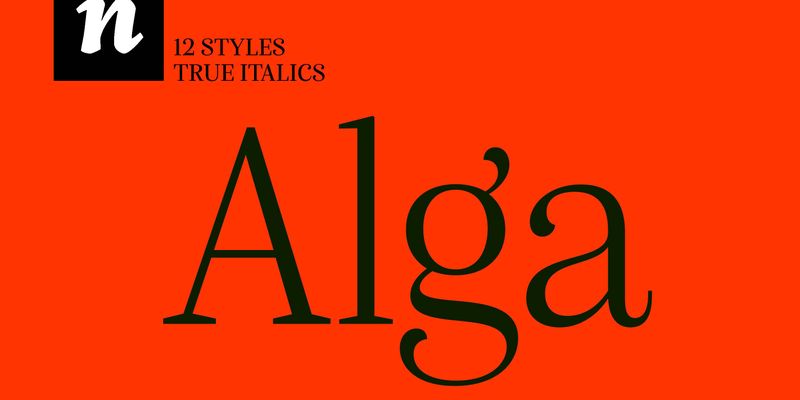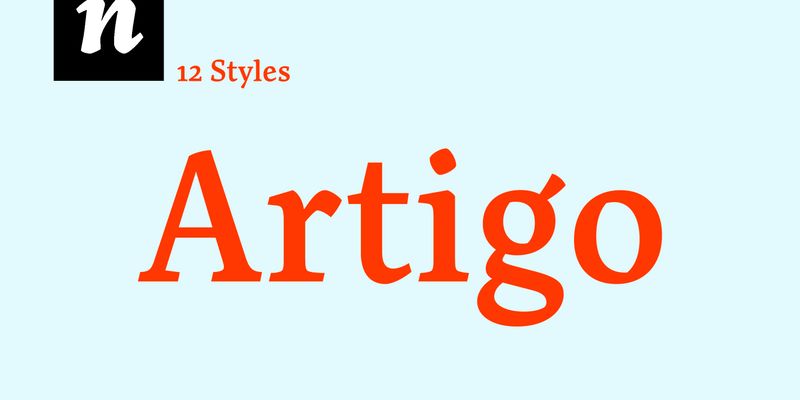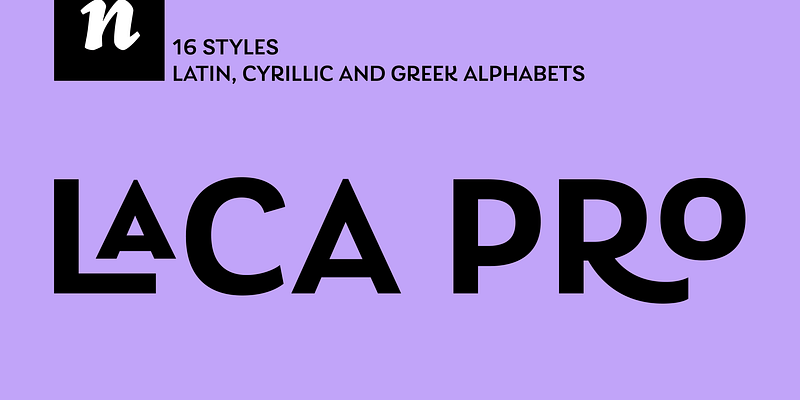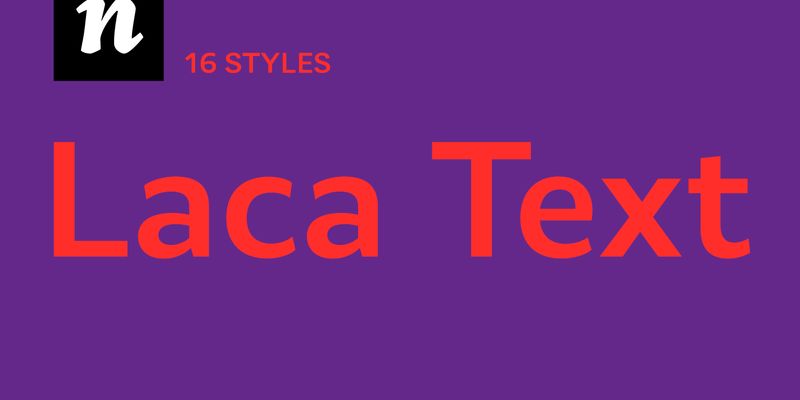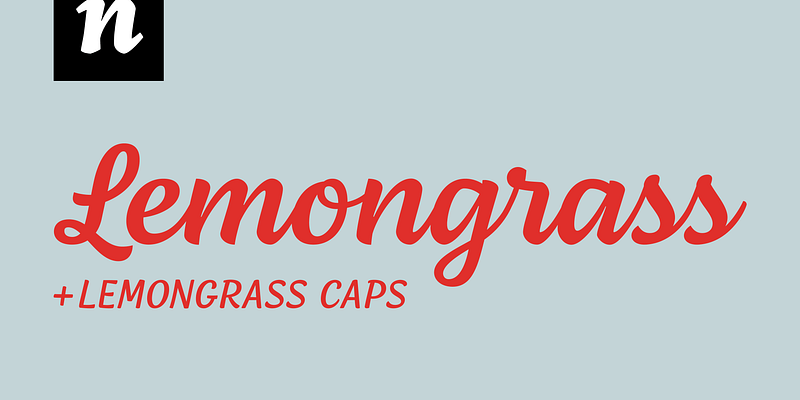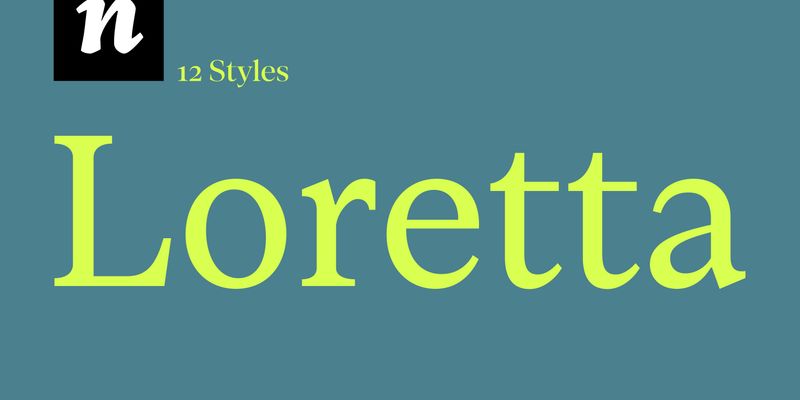
Alga is a high contrast modern typeface with a contemporary look. It has subtle details that make it appealing for big sizes. It is a lively serif typeface with lots of fancy curves. It will shine in headlines and short pieces of text.
Artigo is an old style inspired typeface system for text. It was inspired by the handwriting aspect of the first roman types but it intends to be a contemporary interpretation. Its abilities are in small text with personality.
Laca is a semi-sans inspired by retro Portuguese packaging of soaps. It is a lively typeface that brings texture and personality to the text. Perfect for branding. It has OpenType features that bring alternatives to the designer.
Laca Text is a sans serif version of Laca. It was designed starting from the basic shapes of Laca. It has characteristics like a big x-height, open counters and smaller ascenders. Laca Text is great for long text ,identity and branding.
Lemongrass is a connected script typeface for display use. It was inspired by brush lettering and the ocean. It has low contrast and smooth connections. It can be used for branding and packaging where it will shine.
Loretta is an elegant contemporary serif typeface for body text. It has roots in expressive calligraphic motions, compelled into stable typographic shapes. Loretta is perfect for editorial use in books and on the web because it has low contrast and open shapes that give it ideal legibility. The italic is vibrant and complements the regular with style.